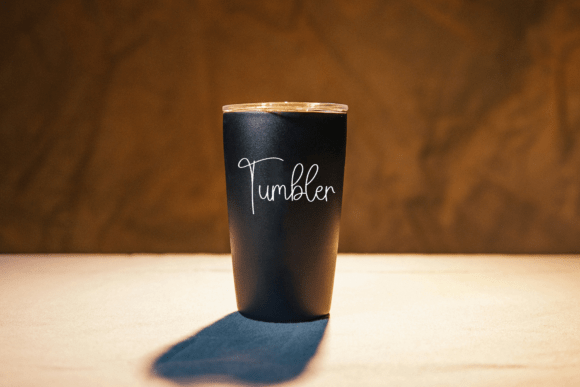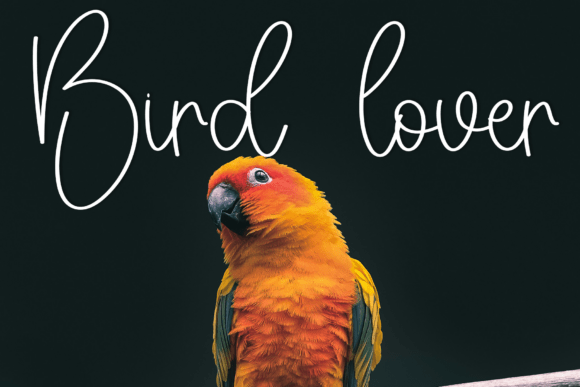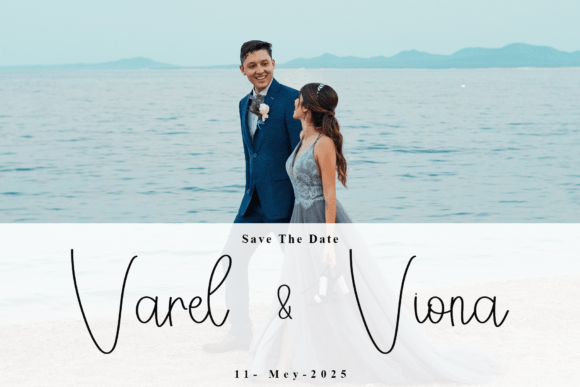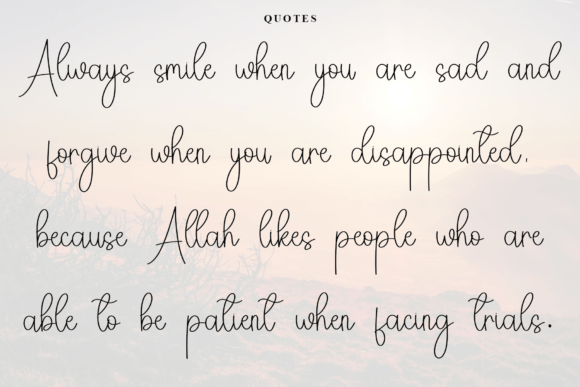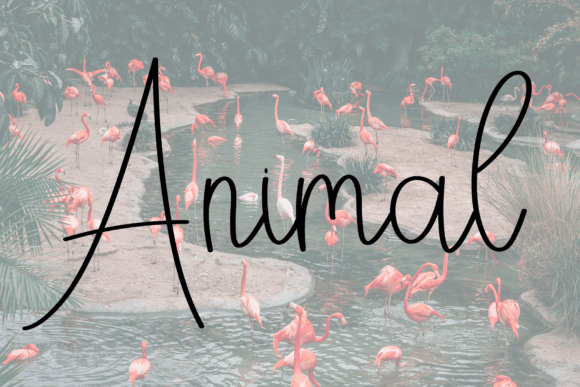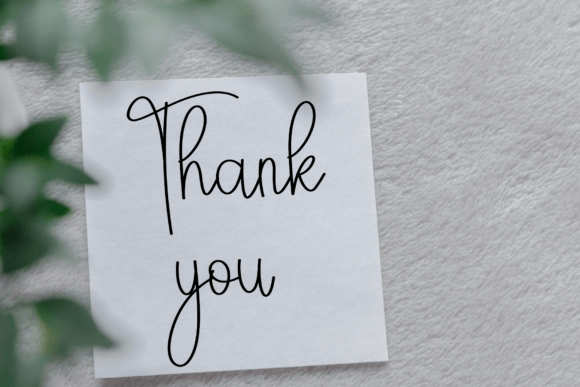
Introducing Butterfly Font: A Timeless Handwritten Delight
Are you a designer or crafter looking for a font that can add a touch of elegance and whimsy to your creations? Look no further than the Butterfly Font! This lovely and timeless handwritten font is the perfect choice for creating eye-catching logos, branding, and quotes that will leave a lasting impression.
The Beauty of Butterfly Font
What sets Butterfly Font apart from other fonts is its unique and beautiful touch. Every letter has been carefully crafted to have its own distinct character, making it a true standout in the world of typography. The font’s handwritten nature gives it a warm and inviting feel, perfect for adding a personal touch to your designs.
Butterfly Font is a versatile font that can be used in a variety of applications, from logo design and branding to crafting and scrapbooking. Its elegant and whimsical feel makes it perfect for creating:
- Eye-catching logos and branding materials
- Beautiful quotes and posters
- Delightful craft projects, such as handmade cards and gift tags
- Stunning scrapbook pages and journal entries
Why Choose Butterfly Font?
- Unique and Beautiful: Every letter has a unique and beautiful touch, making your designs truly one-of-a-kind.
- Timeless: The font’s classic handwritten feel ensures that it will never go out of style.
- Versatile: Butterfly Font can be used in a variety of applications, from digital design to crafting and scrapbooking.
- Elegant and Whimsical: The font’s elegant and whimsical feel makes it perfect for creating designs that are both sophisticated and playful.